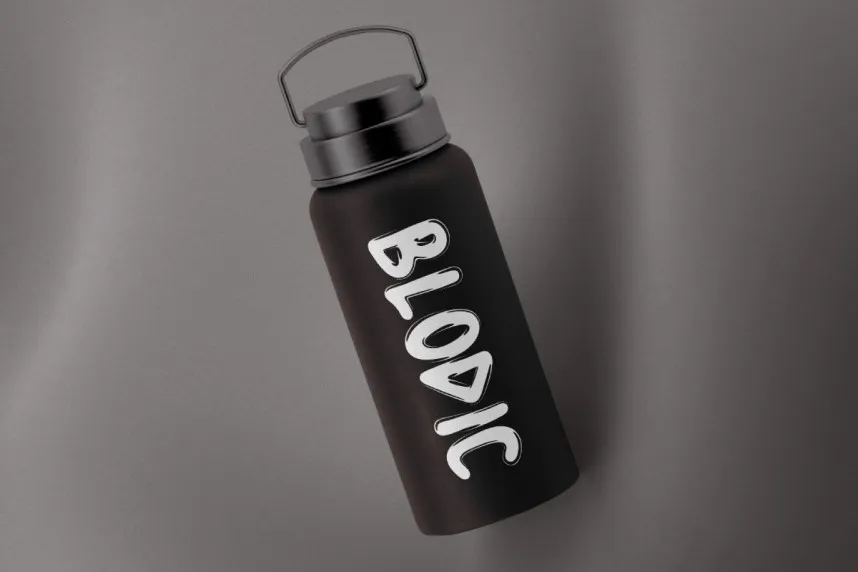
Blodic Font is a bold and stylish typeface that stands out because of its strong and confident look. It has smooth curves and thick lines that make the text appear powerful and modern.
The font is carefully designed to be clean and readable while still having a creative edge. Each letter has been shaped with precision to create a perfect balance between strength and beauty.
Blodic Font works great for titles, logos, posters, and social media graphics. Its eye-catching style makes it perfect for brands that want to show confidence and creativity.
One of the best features of this font is its versatility. It can fit different themes, from business branding to creative artwork. Its clear letterforms help maintain readability while still delivering a bold and modern feel.
Blodic Font Family
Designers appreciate how well it performs in different formats and sizes. It looks sharp on screens and prints equally well on paper. This makes it a reliable choice for professional use, marketing materials, and stylish typography projects.
Type Bold Display
Usage Best for logos, titles, headlines, posters, and branding projects
It is a perfect mix of strength, clarity, and style. It brings life to any text and helps messages stand out. Anyone looking for a modern, confident, and flexible font will find Blodic Font a great choice for their designs.